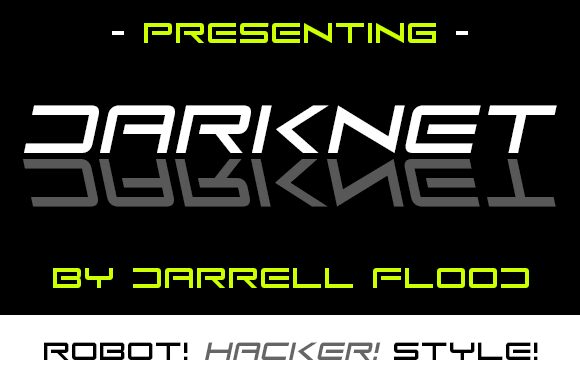
DarkNet Italic
DarkNet Italic, designed by Darrell Flood, is a display font that perfectly captures the essence of the future. Its semi-light weight and extra-expanded width give it a unique look, making it perfect for projects that require a futuristic touch. With its sleek curves and sharp edges, DarkNet Italic can be used for anything from video game titles to sci-fi movie posters. The font's bold style makes it ideal for branding projects that want to stand out from the crowd. Whether it's a tech startup or an edgy fashion line, DarkNet Italic is sure to make a lasting impression.